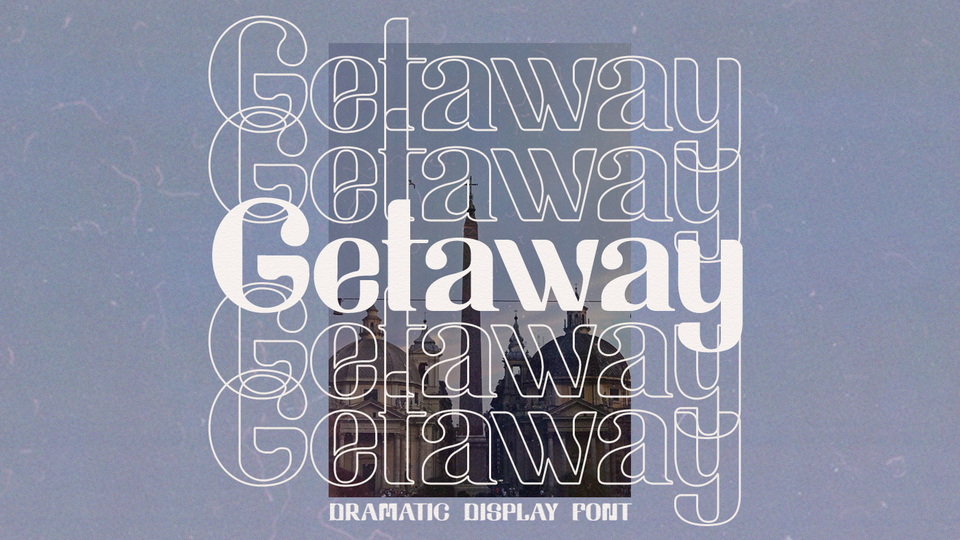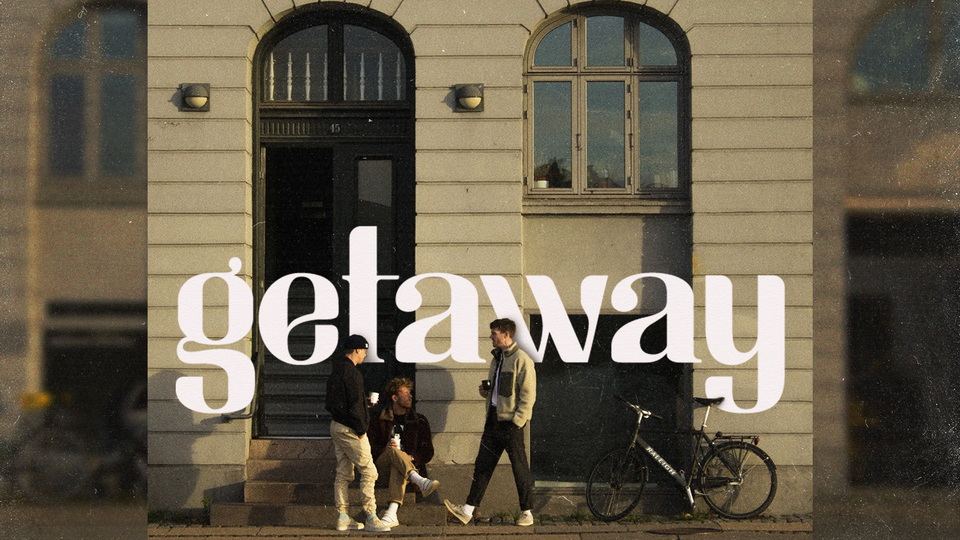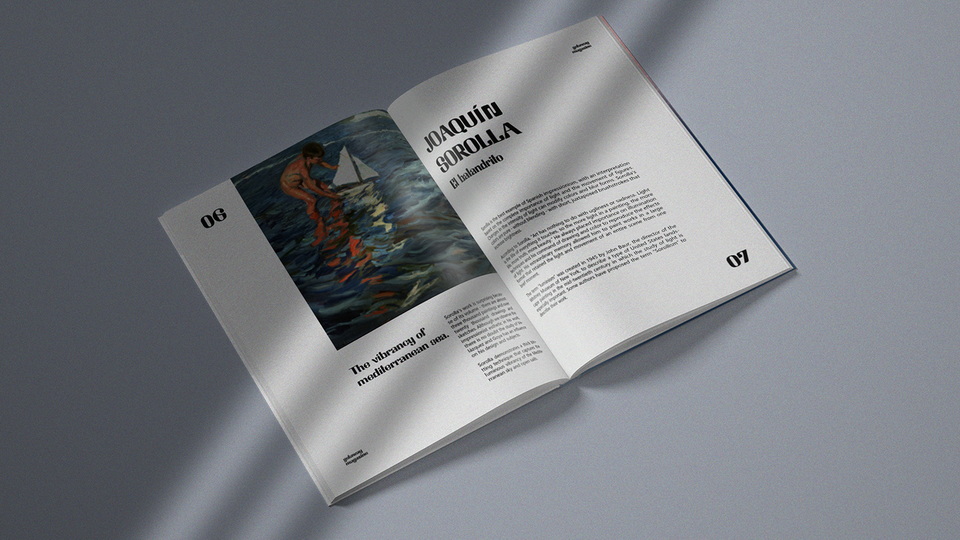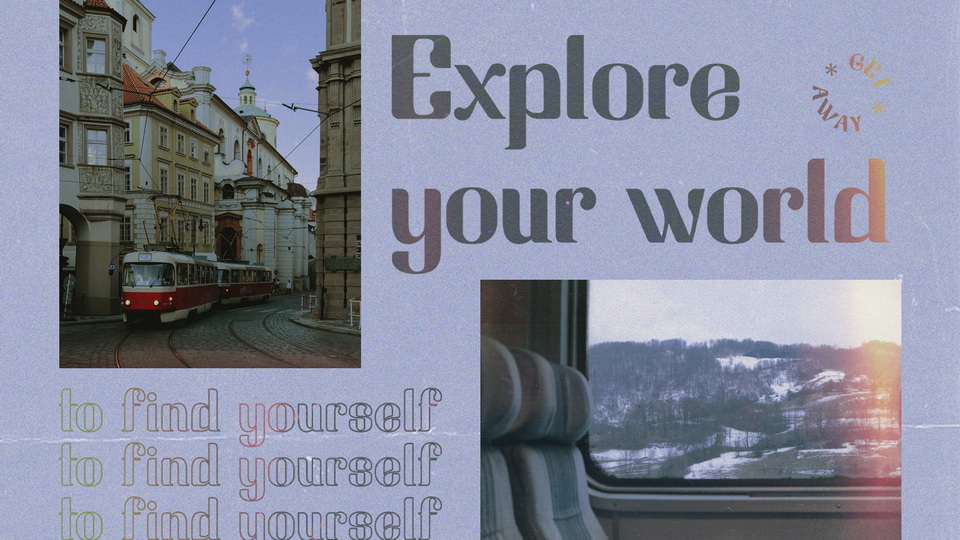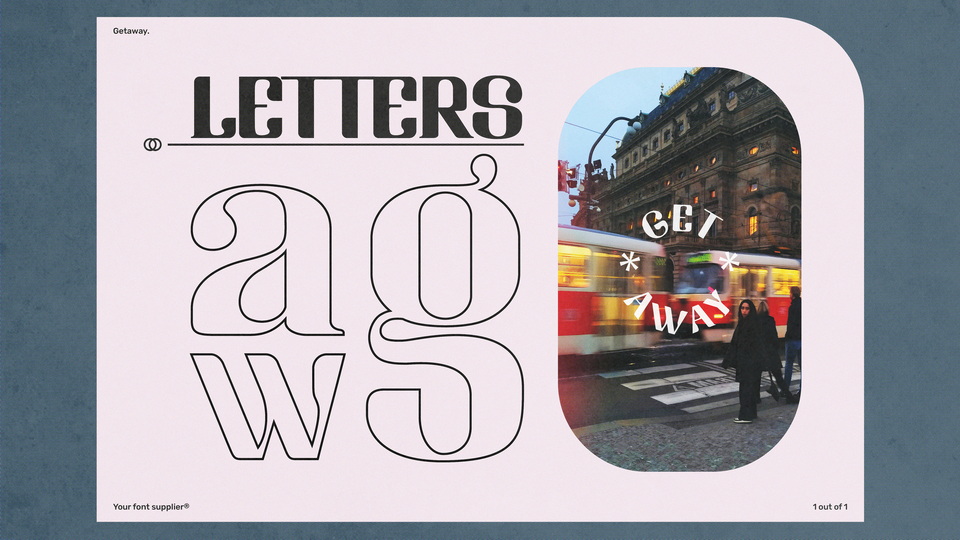
Getaway is a bold display font. It has a harmonic balance between straight and curved shapes, becoming a modern interpretation of vintage typestyles. Headlines, posters, magazines.. you have a whole world to explore through Getaway.